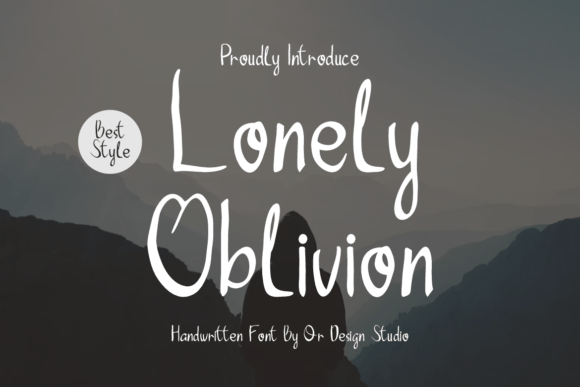
Welcome, curious explorers of digital artistry, to the realm of Lonely Oblivion, where calligraphy and imagination dance in graceful harmony. This exquisite family of script fonts, brought forth by the visionary qrdesignstd, is a testament to the power of handwritten charm in a digital world.
Introducing the Lonely Oblivion script, a whimsical and enchanting font that invites you to embark on a typographic voyage like no other. Its delicate strokes and flowing lines are reminiscent of a gentle summer breeze, guiding your eyes across the page with effortless grace. Each letter is a work of art, carefully crafted to evoke a sense of nostalgia and timeless beauty.
Imagine the sheer elegance of Lonely Oblivion adorning your food menu, transforming it into a culinary masterpiece even before the first bite. Its charming curves and subtle flourishes will tantalize taste buds and leave a lasting impression on your patrons. With Lonely Oblivion, every dining experience becomes an unforgettable journey into the realm of gastronomic artistry.
For those with a penchant for personal expression, Lonely Oblivion is your perfect companion. Its versatility knows no bounds, allowing you to infuse your social media posts, personal invitations, and heartfelt letters with a touch of whimsy and warmth. Let your words dance across the digital canvas, carrying with them the essence of your unique personality.
Whether you're a culinary artist, a creative entrepreneur, or simply a dreamer seeking a touch of magic in your digital life, Lonely Oblivion awaits you. Its user-friendly design and effortless compatibility make it the perfect choice for any project that calls for a touch of sophistication and charm.
Step into the world of Lonely Oblivion and unlock the limitless potential of your creativity. Its beauty and versatility will captivate your audience, leaving them forever enchanted by the power of your words.